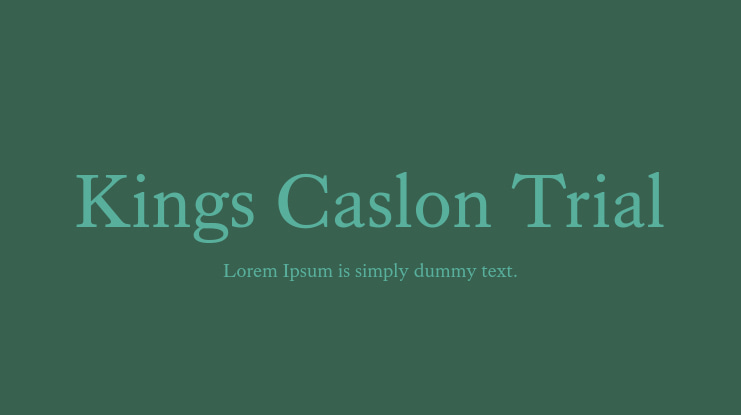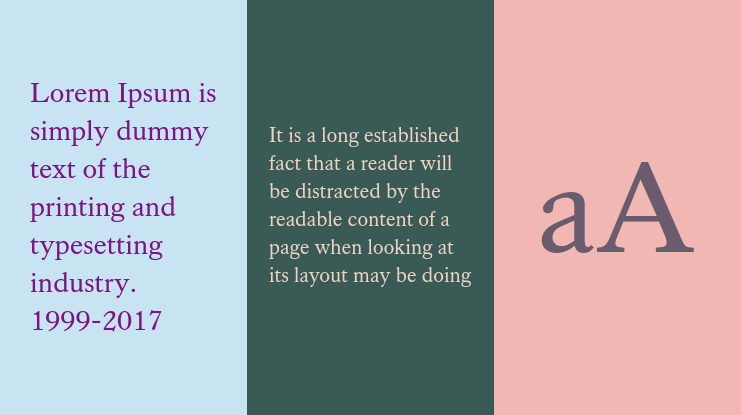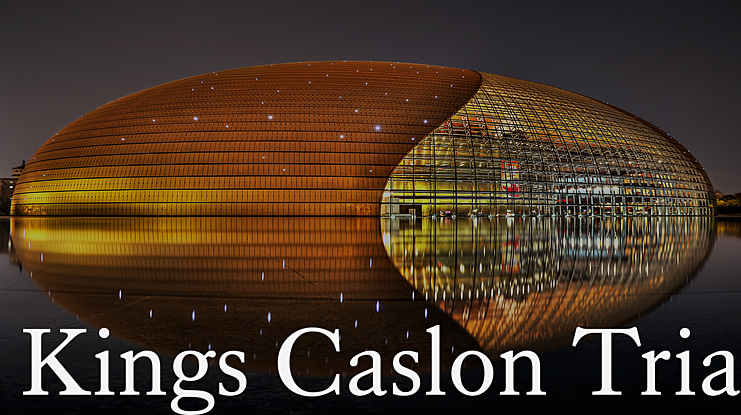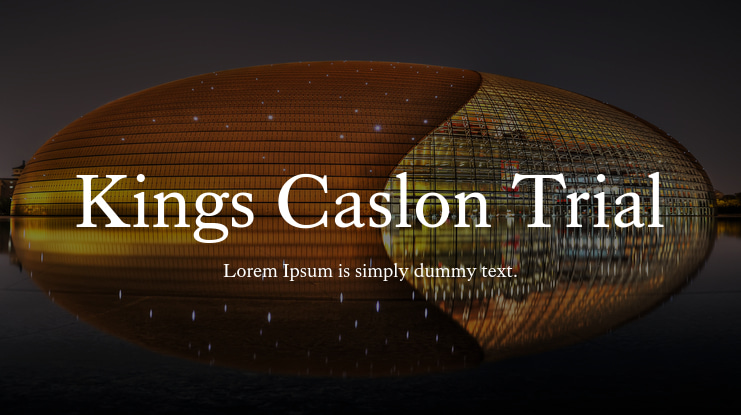
Kings Caslon Trial Font Family
It’s a classic display serif with plenty of style. King’s Caslon is an elegant revival of the Caslon tradition. With four Text styles and two Display styles, all featuring a now iconic ampersand, classical sophistication is brought to any project. Perfect for fashion work, magazines or just a classy logo design.